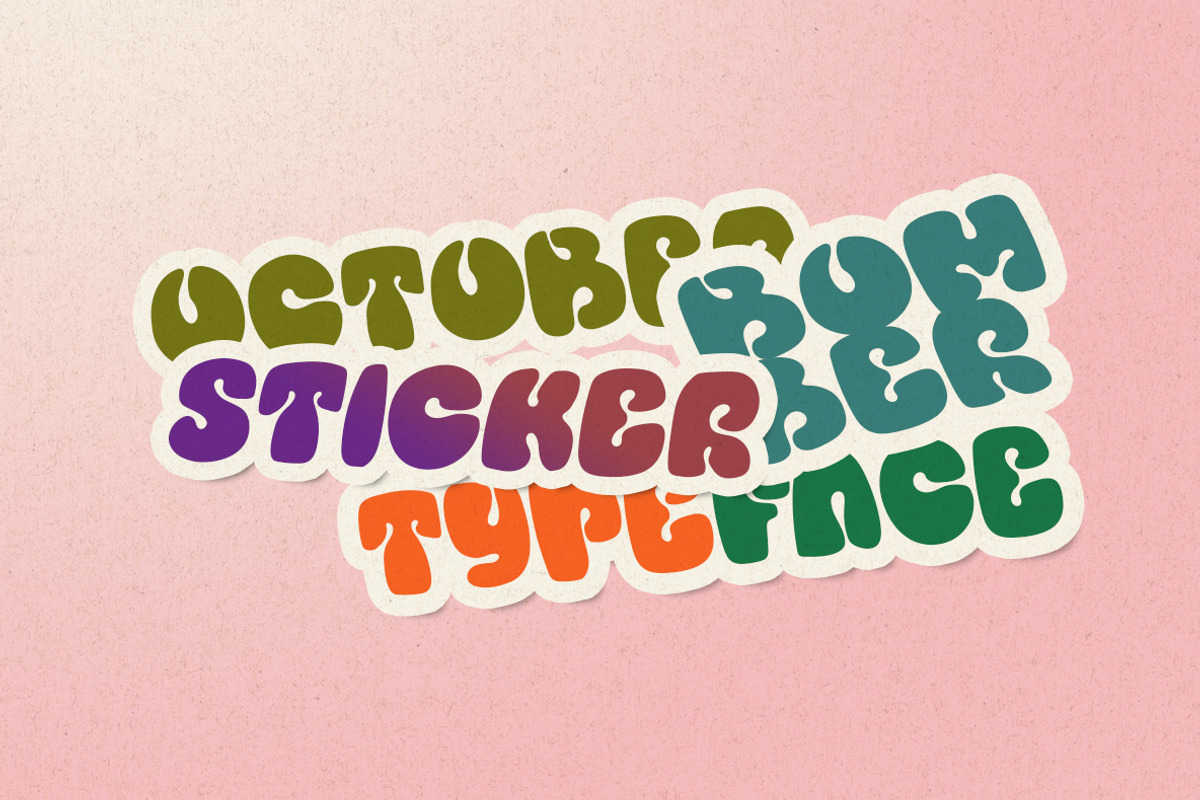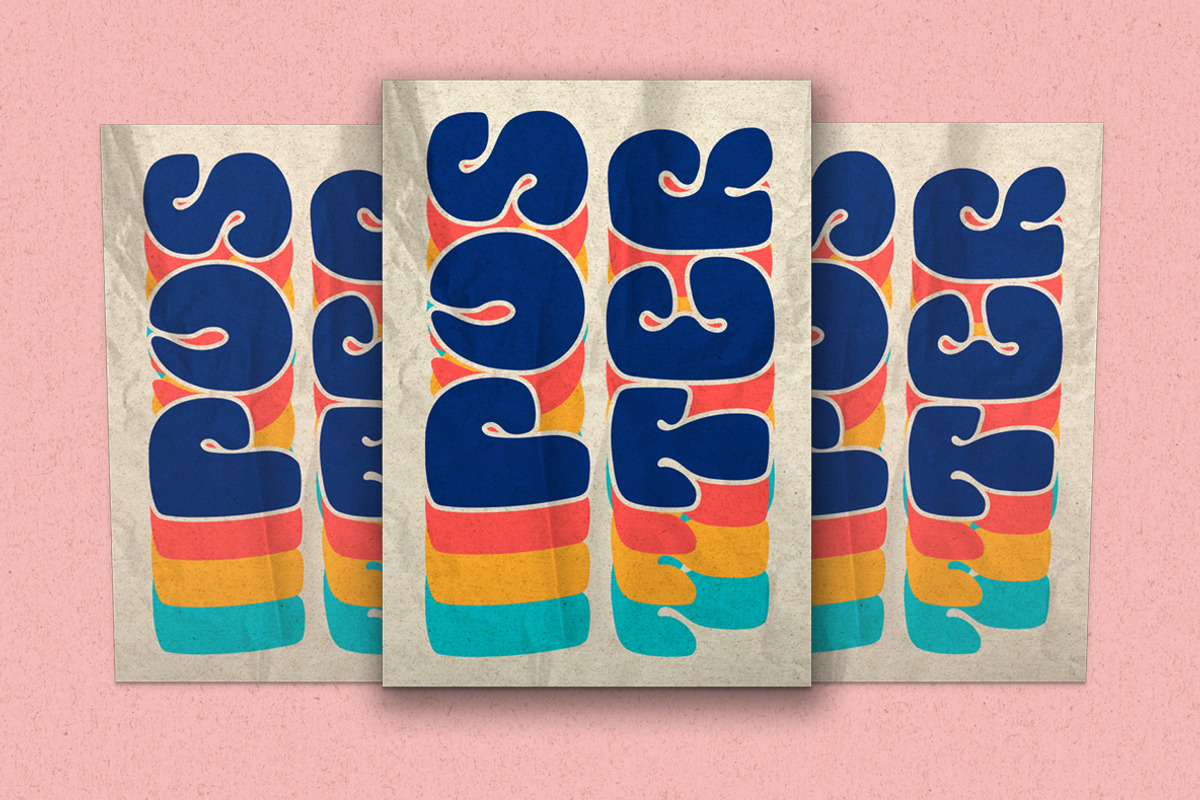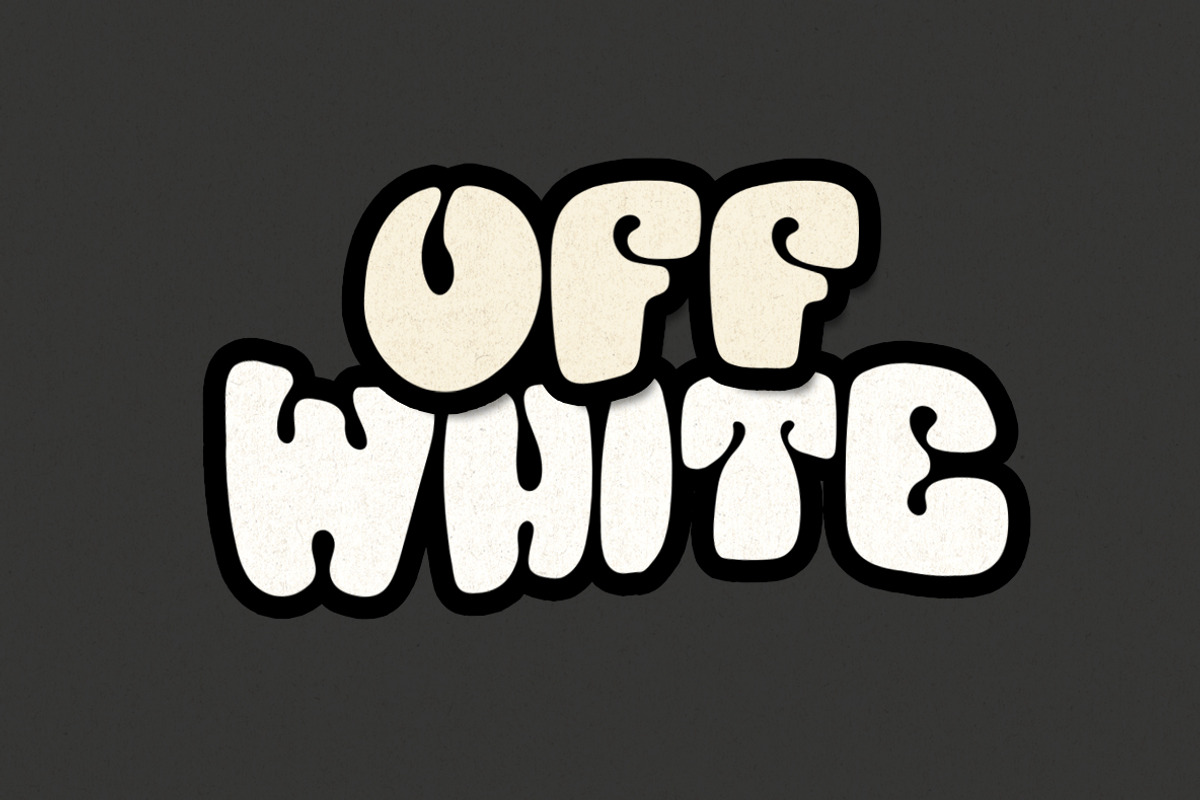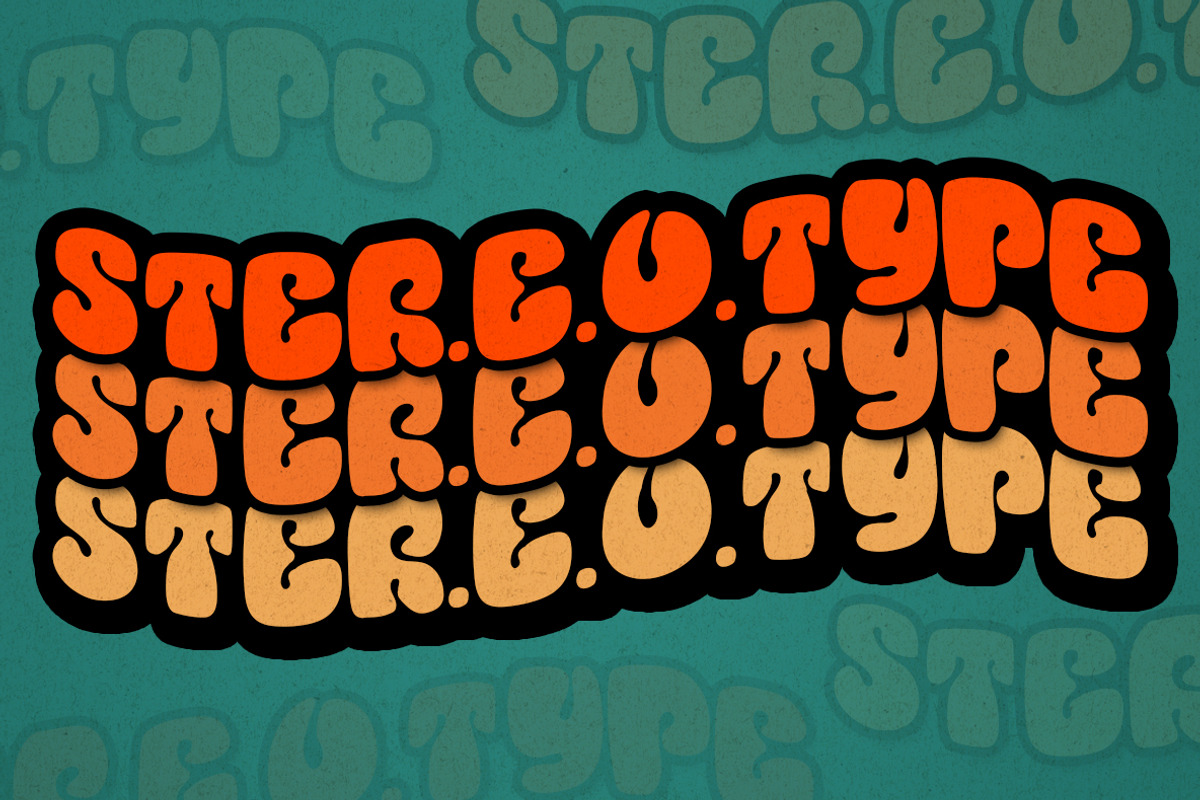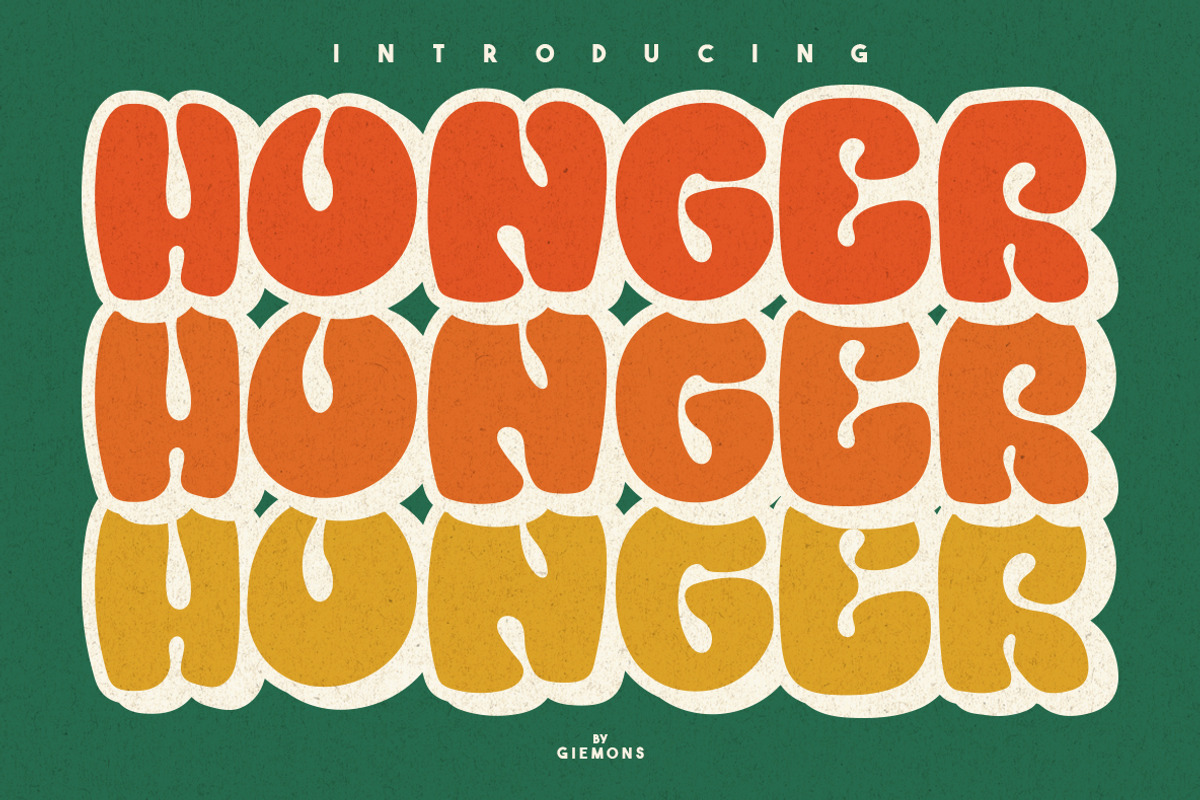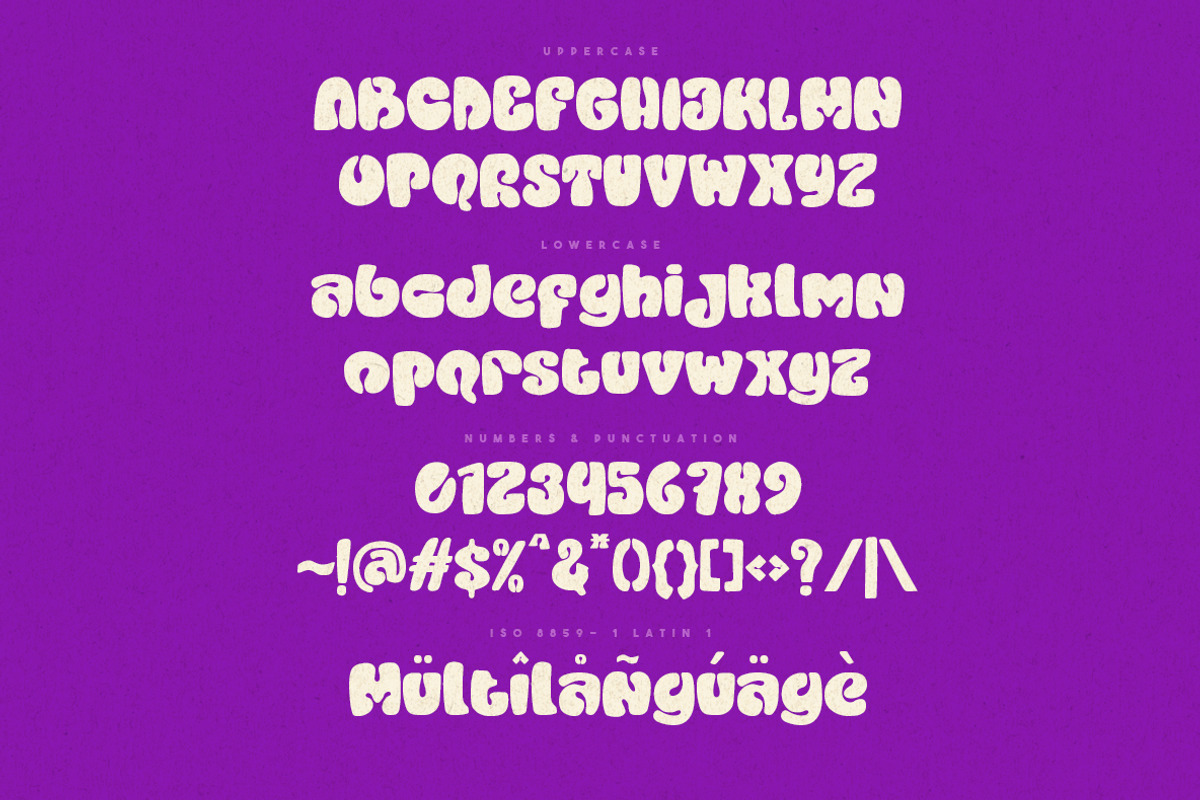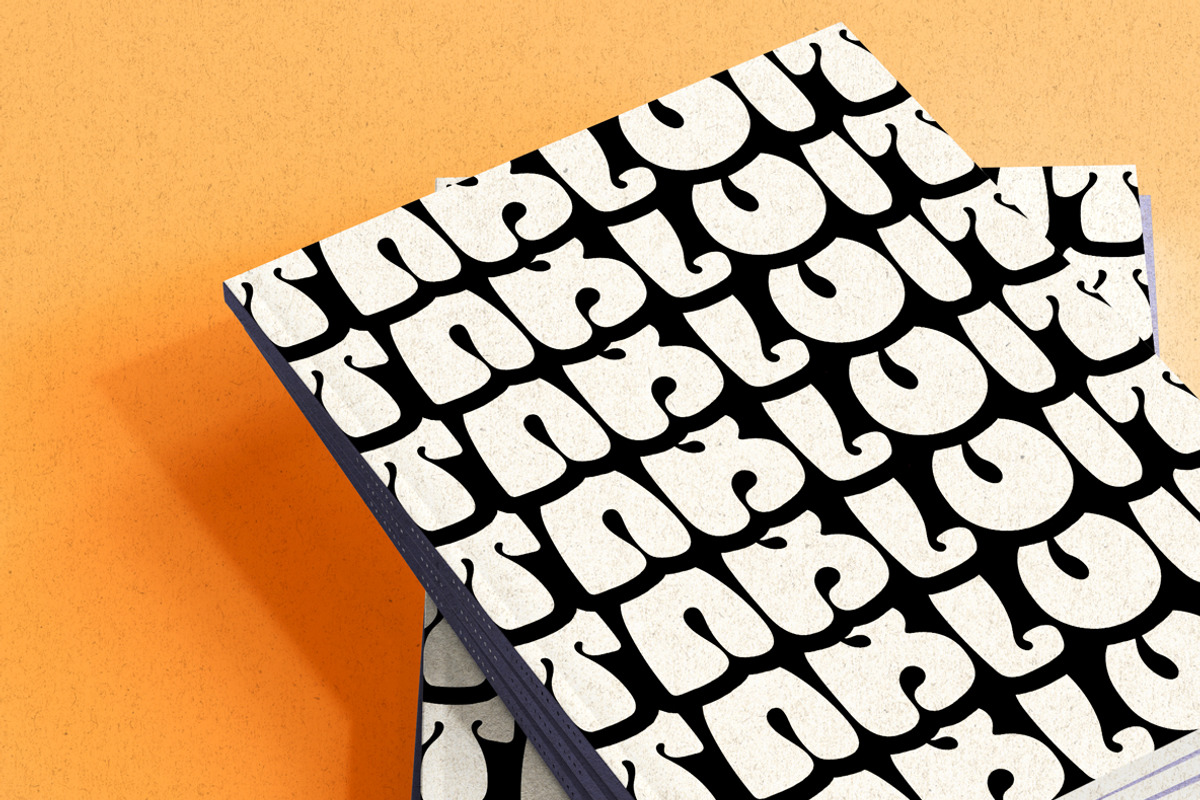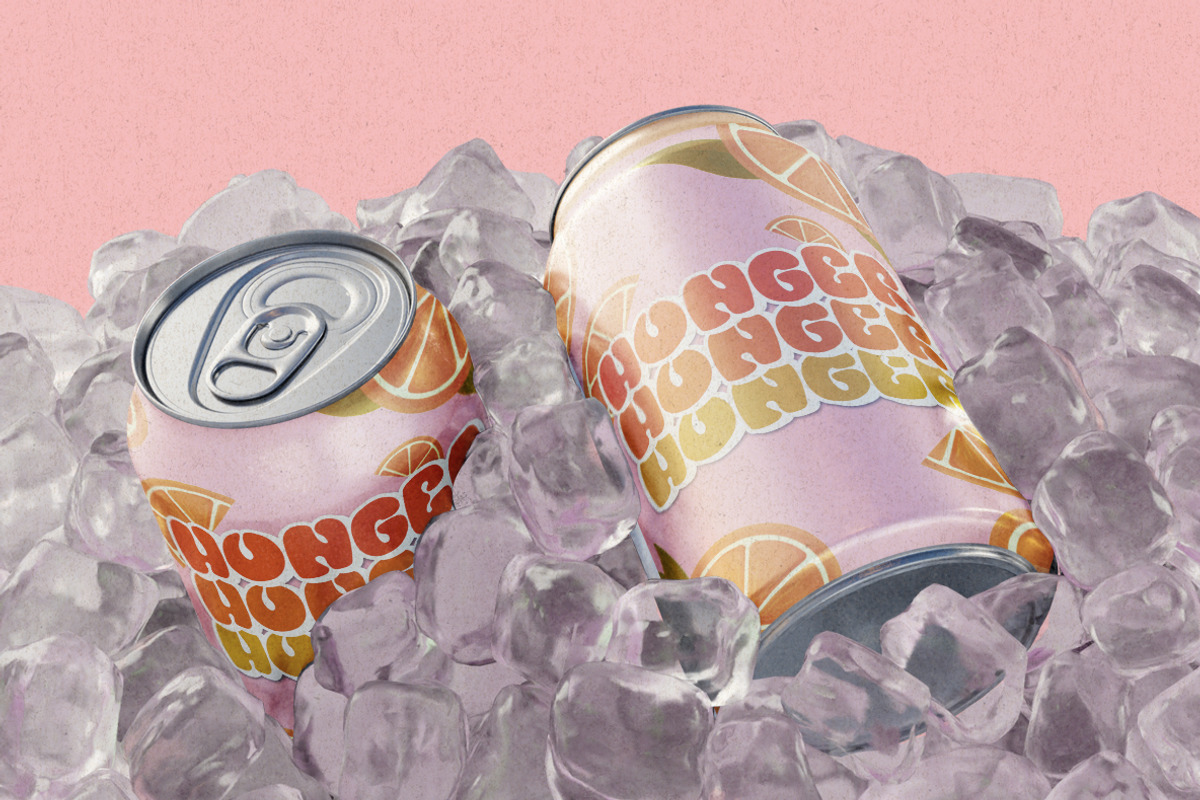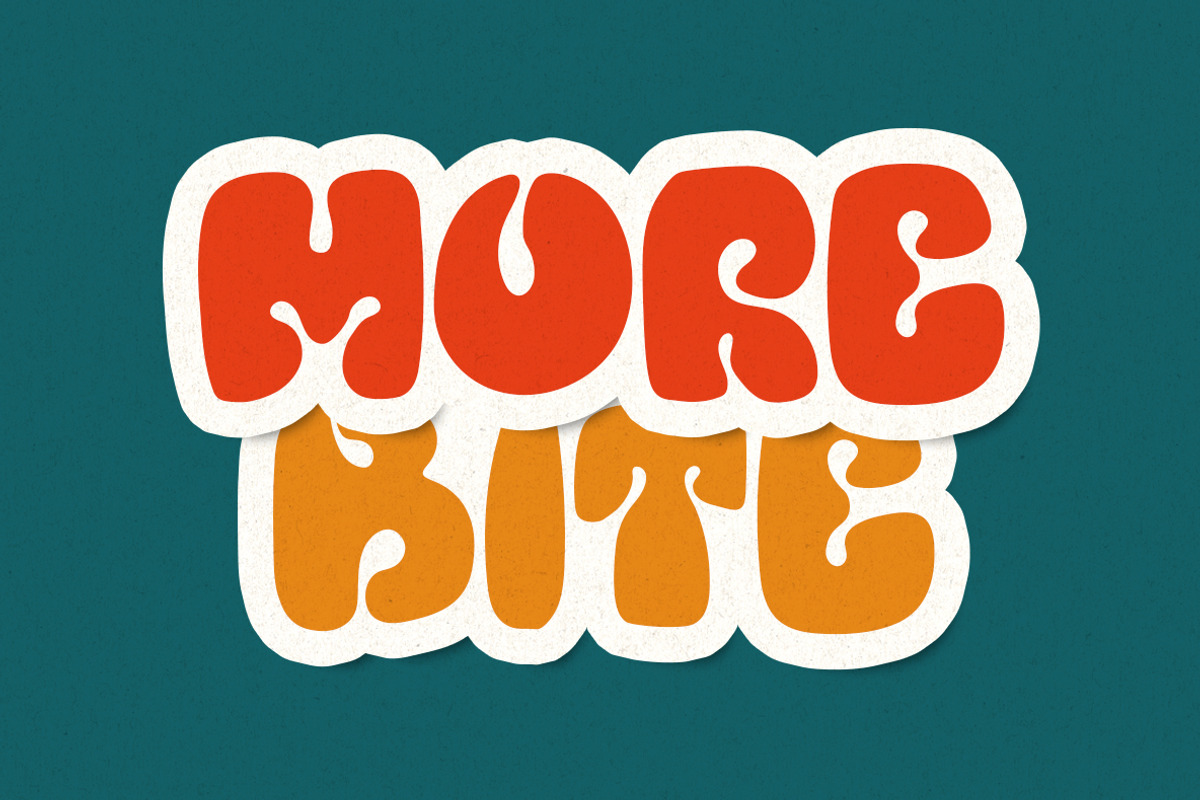
Honger Typeface - BOLD
RETRO VIBES FONT by GIEMONS
a HONGER Typeface is Retro style Display Font. Can make it easier to convey the message in your design. Use for awesome display, Logo, labeling, clothing, movie sceen, poster, movie title, gigs, album covers, logos, and much more.